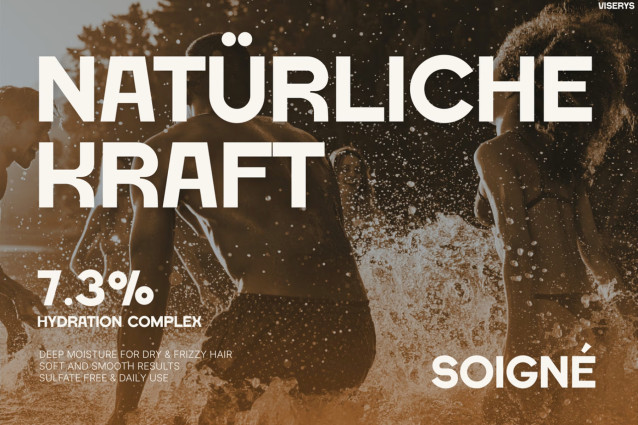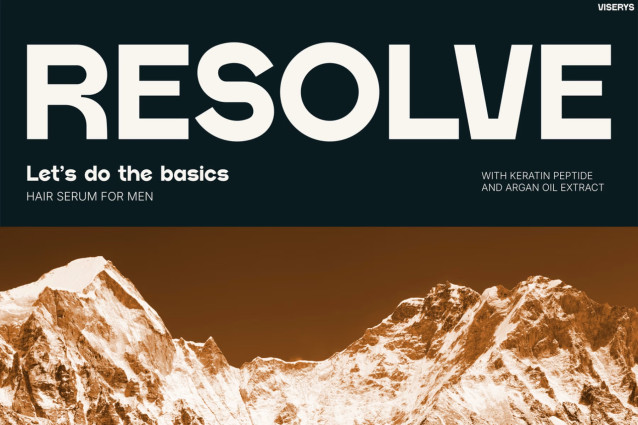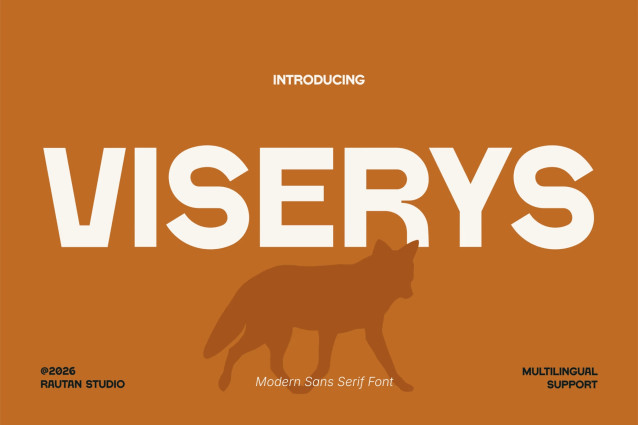
Viserys – Bold, Modern & Urban Display Font
Modern Font Viserys is a bold display font built for clean, powerful, and contemporary designs. With its strong geometric shapes and confident letterforms, VISERYS creates an instantly modern aesthetic. Moreover, its compact structure gives headlines a sharp and professional look. At the same time, the bold forms keep your message clear and highly visible. Therefore, VISERYS is perfect for designs that need a strong visual statement.